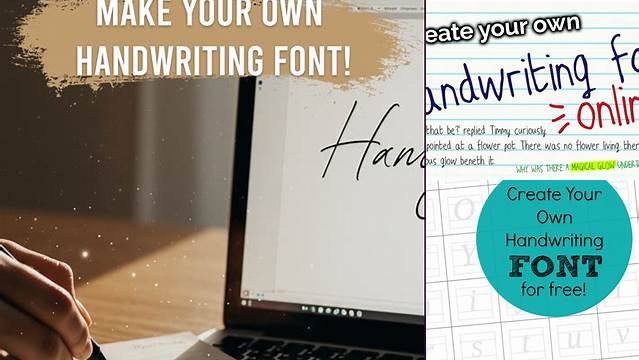
Create Your Own Handwriting Font Free Online
Hey guys! Ever wished you could sprinkle a little bit of your own personality into your digital world? Well, guess what? You totally can! And the best part? You can make your own handwriting font free online! Yeah, you heard that right. No need to shell out big bucks for fancy software or spend hours learning complex design skills. This is all about having fun, getting creative, and making your mark on the digital landscape. We're diving into how you can transform your unique handwriting into a custom font that you can use in all sorts of cool ways. Think personalized emails, unique social media posts, or even spicing up your documents. It's easier than you might think, and the results are seriously rewarding. So, buckle up, because we're about to embark on a journey to give your digital presence a serious shot of individuality. Let's get started on how to make your own handwriting font free online!
H2: Why Make Your Own Handwriting Font?
Okay, so why bother with creating your own font? Well, there's a whole bunch of reasons why this is such a fantastic idea. First off, it's a way to inject your personality into everything you do online. Tired of the same old generic fonts? Your handwriting is unique, and it deserves to be showcased! When you make your own handwriting font free online, you're essentially creating a digital fingerprint. It's a way to stand out from the crowd and express yourself in a truly authentic way. Think about it – using your own handwriting font is like signing everything you create, only it's done digitally. It instantly adds a personal touch that can't be replicated by any other font.
Beyond the personal touch, creating your own font can be incredibly useful for branding. If you're a small business owner or a freelancer, a custom font can help you establish a unique brand identity. It makes your logo, website, and marketing materials instantly recognizable and memorable. When people see your font, they'll immediately associate it with your brand, which is a huge win for building brand recognition. Plus, it's a great conversation starter! People are always intrigued when they see a font that's a little different, and it can spark a genuine interest in your work. Let's also not forget the fun factor. It's a creative outlet that lets you experiment with different styles and express yourself artistically. It's a great way to unwind and get those creative juices flowing. Whether you're a seasoned designer or a total beginner, the process is surprisingly accessible and enjoyable. So, whether you're looking to personalize your digital life or create a unique brand identity, creating your own handwriting font is a total game-changer.
H3: The Personal Touch: Making Your Digital World Unique
In a world saturated with digital content, standing out can be a challenge. That's where the personal touch comes in. When you make your own handwriting font free online, you're adding a layer of authenticity that's often missing in the digital realm. Think about it – your handwriting is as unique as your fingerprint. It reflects your personality, your quirks, and your individual style. When you incorporate your handwriting into your digital communications, you're essentially signing everything with your own flair. It shows that you care about what you're creating and that you're willing to go the extra mile to make it personal.
This personal touch is especially powerful in a world dominated by generic templates and mass-produced content. It's a way to connect with your audience on a deeper level, showing them that there's a real person behind the screen. Whether you're crafting emails, designing social media graphics, or creating presentations, your handwriting font can make all the difference. It can transform mundane text into something engaging and memorable. It can also evoke a sense of nostalgia and warmth. People love seeing handwriting because it reminds them of a time when things were more personal and less automated. So, if you're looking to make your digital world more unique and engaging, creating a handwriting font is a fantastic way to do it. It's a simple yet effective way to add that all-important personal touch.
H2: Free Online Tools to Create Your Own Handwriting Font
Alright, let's get down to the nitty-gritty – the tools! The good news is that there are plenty of fantastic free online resources that make it incredibly easy to make your own handwriting font free online. These tools are designed to be user-friendly, even for those with no prior design experience. They often involve simple steps like uploading your handwriting samples or tracing letters, making the process super accessible. This means you don't need to spend a fortune on expensive software or hours learning complex design skills.
Many of these platforms provide templates for you to fill out. You can print these templates, handwrite the letters and symbols, then scan or upload the completed sheets. The tool then works its magic, converting your handwriting into a fully functional font. Some platforms even allow you to customize your font further by adjusting the spacing, kerning (the space between letters), and other design elements. This gives you a good level of control over the final product. These tools generally offer clear instructions and helpful tutorials, guiding you through each step of the process. You can create your own font by simply following the provided guides. This makes the whole experience much less daunting, especially if you're a beginner. So, ditch the worries and embrace the ease of creating your own unique font with these free online tools. They are the key to unlocking your creativity and bringing your handwriting to the digital world.
H3: Fontstruct: A Pixel-Based Font Editor
Fontstruct is a web-based font editor that allows you to create fonts by assembling geometric shapes, known as